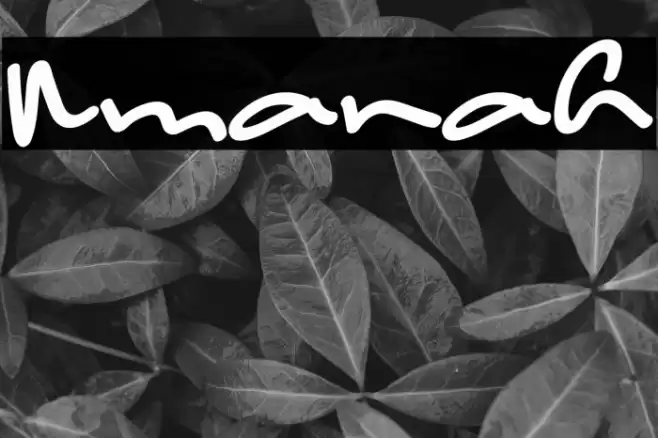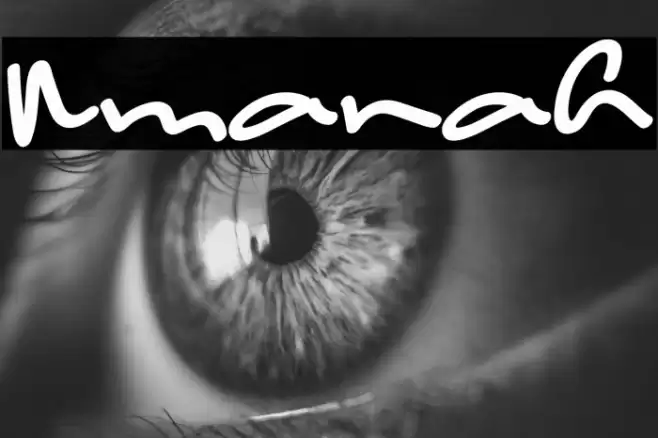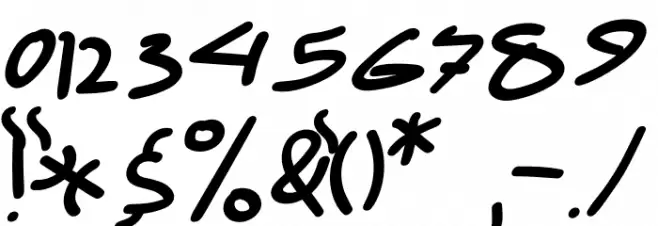
Amanah Font
Amanah Description
This font exhibits a lively and dynamic handwritten style, characterized by its fluid and connected strokes. The letters have a casual and informal appearance, with a slight slant that adds to the overall energetic feel. The uppercase and lowercase letters maintain a consistent style, with rounded edges and smooth curves. The numbers and special characters are equally expressive, maintaining the playful and spontaneous nature of the font. This font is well-suited for projects that require a personal touch or a sense of creativity and freedom.
A lively and dynamic handwritten font with fluid, connected strokes from Regular fonts.
- Proposed Projects: Ideal for greeting cards, personal branding, creative projects, and informal invitations.
- Overall Style: Casual and playful
- Use Case: Logos, headlines, creative projects